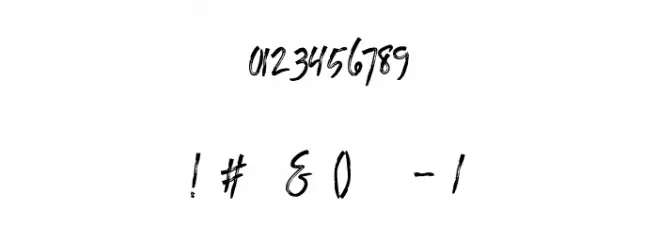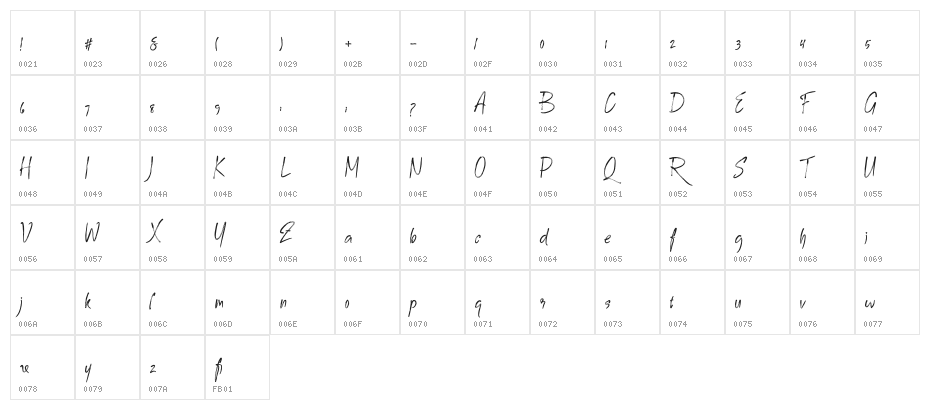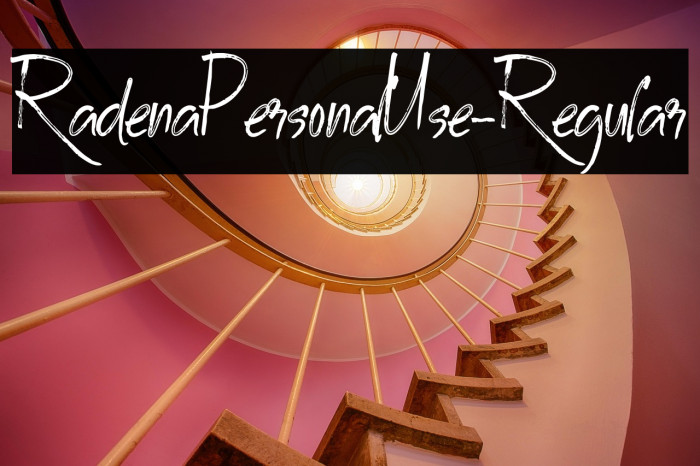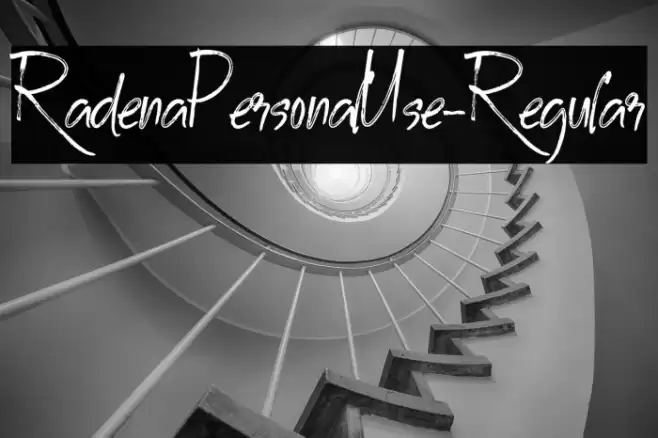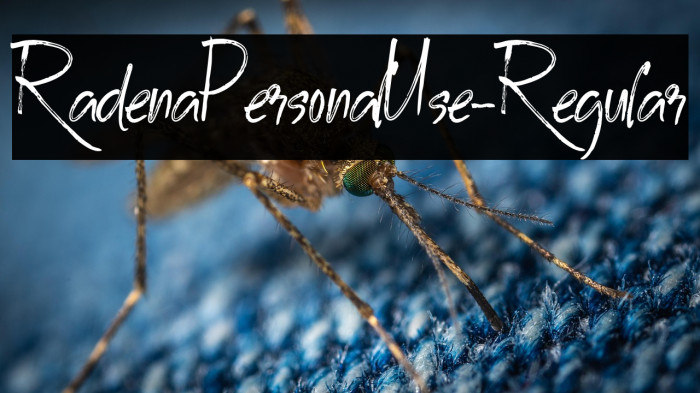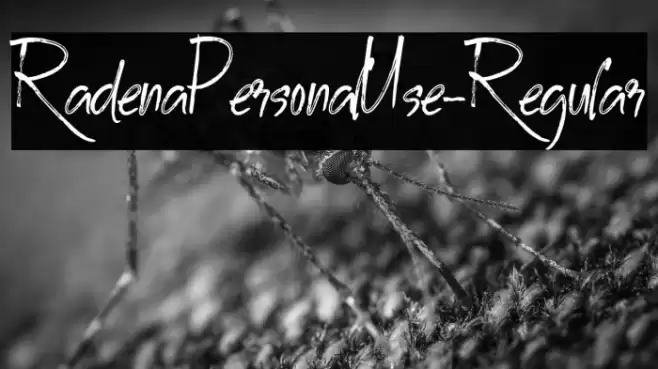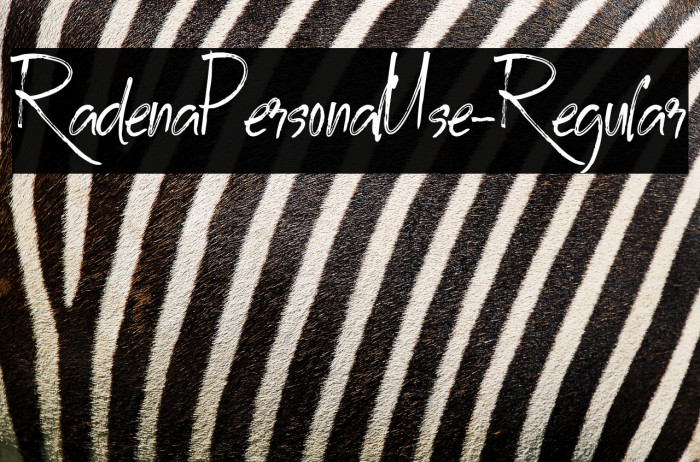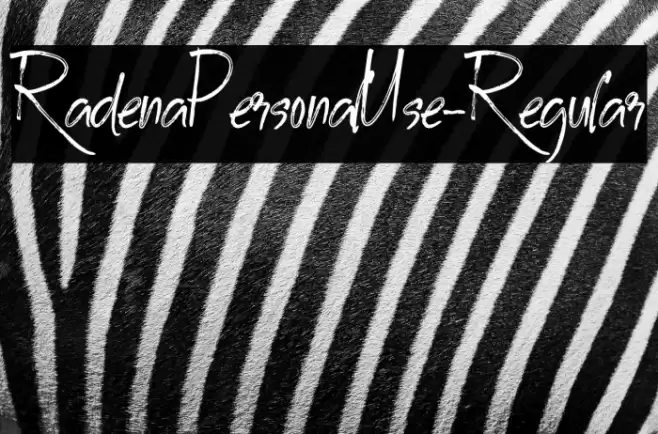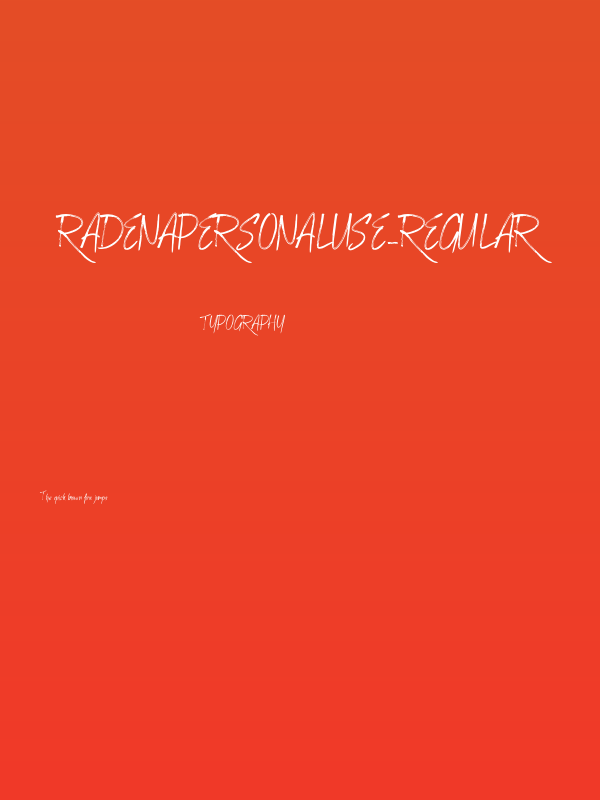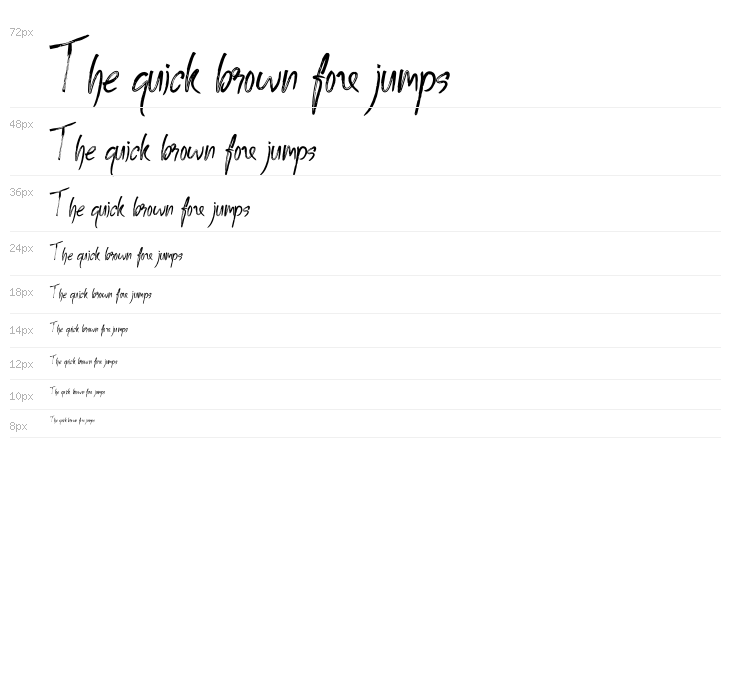
RadenaPersonalUse-Regular Font
RadenaPersonalUse-Regular Description
This font features a dynamic and expressive handwritten style, characterized by its fluid strokes and artistic flair. The uppercase letters are bold and slightly slanted, giving a sense of movement and energy. The lowercase letters maintain a consistent flow, with some letters extending below the baseline, adding to the font's casual and creative appearance. Numbers and special characters are designed to match the overall aesthetic, ensuring a cohesive look across all elements. The font's unique brush-like texture adds depth and personality, making it stand out in any design.